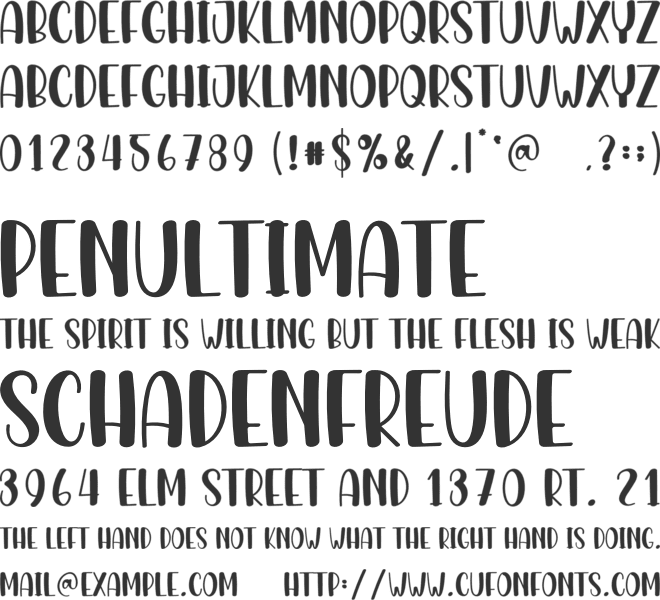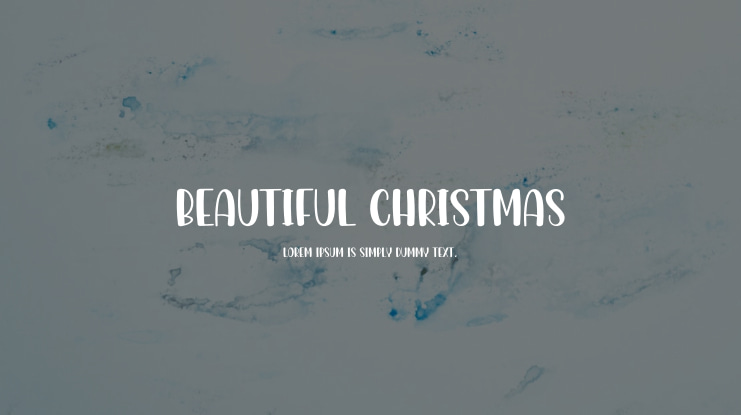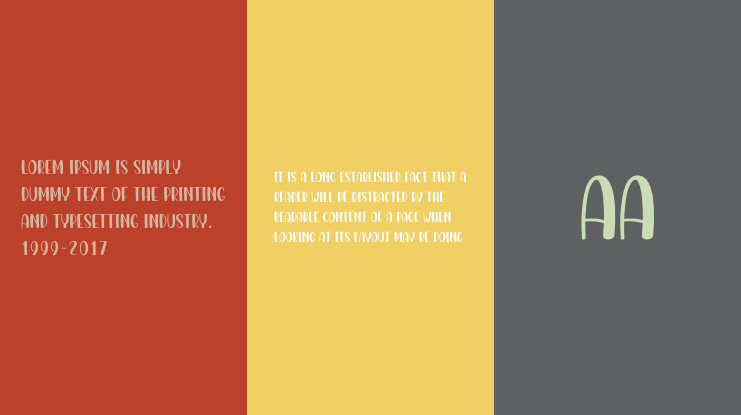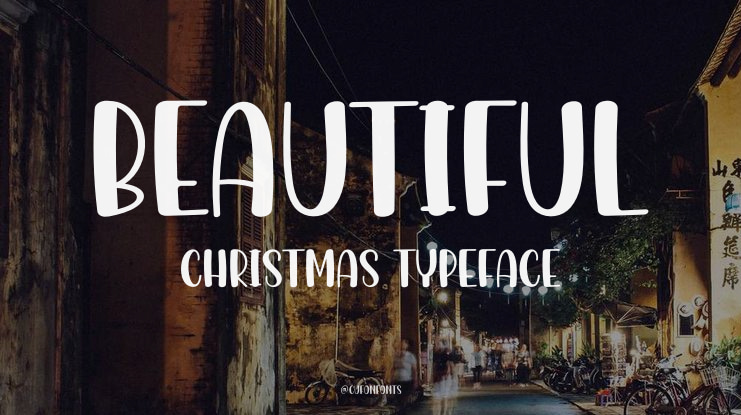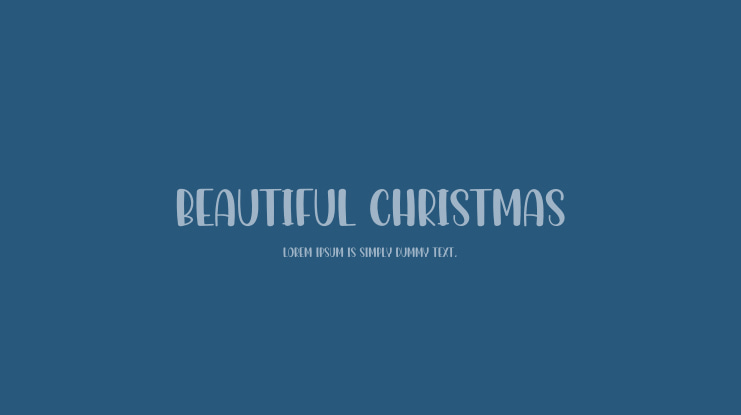
Beautiful Christmas Font
Discover our special creative products designed to provide you with an extraordinary experience.
Our latest stylish fonts are perfect for wall displays, wedding invitations, social media logos,
advertisements, product packaging, designs, labels, photography, watermarks, invitations, stationery,
and any project that requires elegant handwriting.